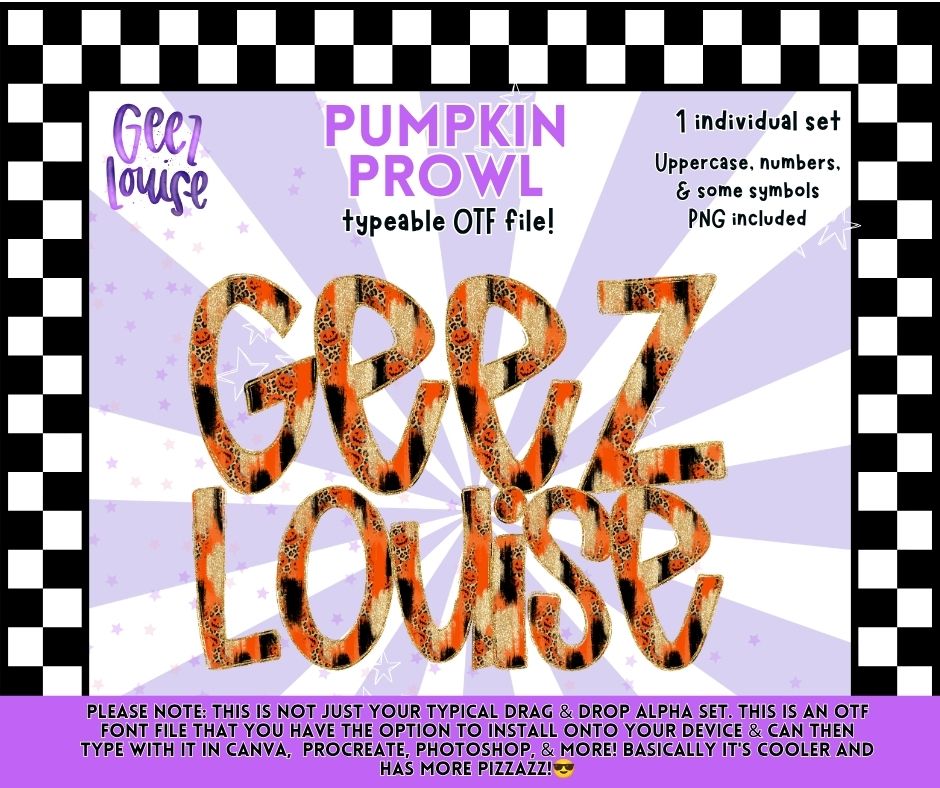
Pumpkin Prowl OTF Font | Halloween Leopard Alpha | PNG Included | August 26 Combo Drive & Alpha Drive
Bring spooky season to your designs with the Pumpkin Prowl OTF Font! This Halloween-inspired alphabet features pumpkins, leopard print, and glitter accents for the perfect fall vibe. A matching PNG alpha set is included.